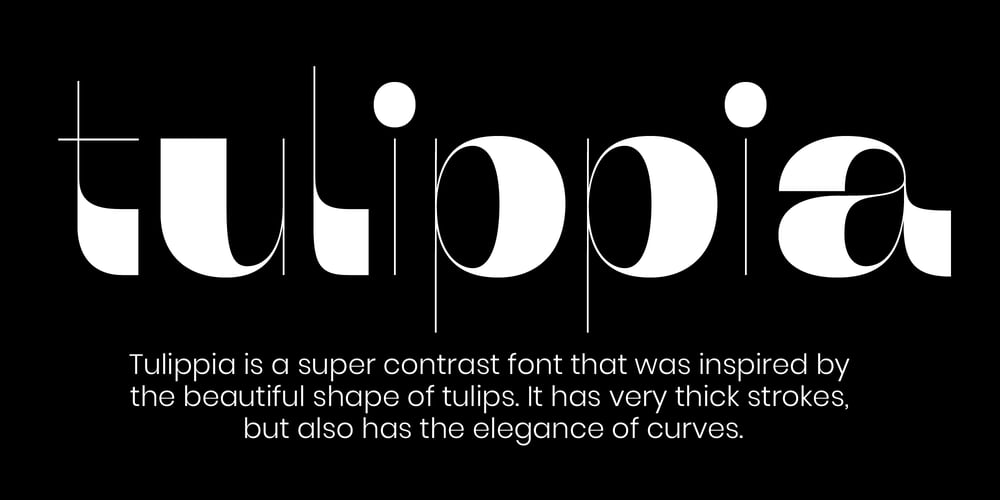
Tulippia
Tulippia font
Tulippia Font Family was designed by Soung-ryung Shin and published by SRS Type. Tulippia contains 2 styles and family package options. Tulippia is a super contrast font that was inspired by the beautiful shape of tulips. It has very thick strokes, but also has the elegance of curves. Using this font can give you a unique contrast effect along with visual impact. Tulippia is suitable for various types of design work such as branding, poster design, and editorial design, and comes in two weights: Regular and Heavy as display fonts.